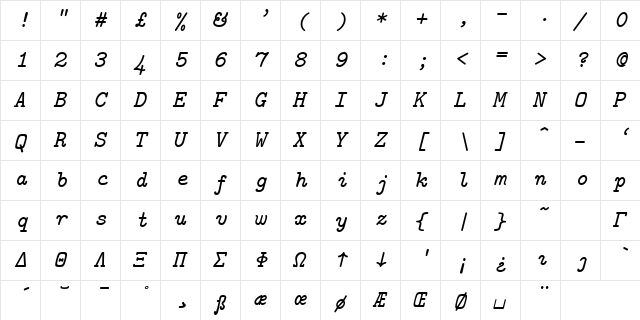
cmitt10 Regular
Design Context for cmitt10 Typeface
cmitt10 is a composed and adaptable typeface that performs quietly and consistently across a wide range of design contexts.